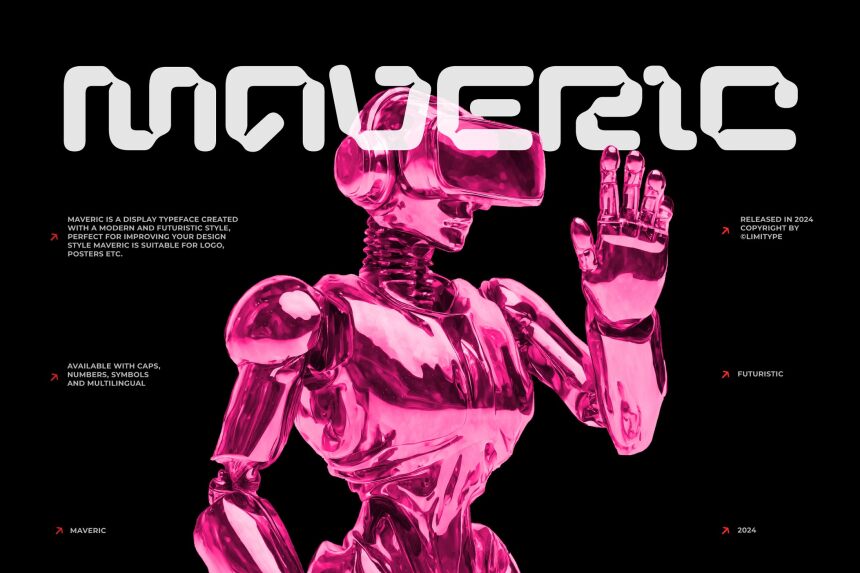
Maveric emerges as a bold statement in the realm of typography, a creation by Muhammad Muammar of Limitype that encapsulates digital modernity with a futuristic flair. This display font stretches wide across the page, its expanded characters asserting presence with an unmissable confidence. Maveric's aesthetic whisks you to the forefront of innovation, where its distinctive shapes could easily grace the interfaces of tomorrow's technology or headline cutting-edge branding campaigns.
With its pronounced style, Maveric is an ideal match for projects that demand attention and aim to convey a sense of advancement and sophistication. Whether it's used in tech startup logos, event posters for sci-fi conventions, or video game UIs, this font stands out as not just lettering but as a design element that defines an era yet to unfold.